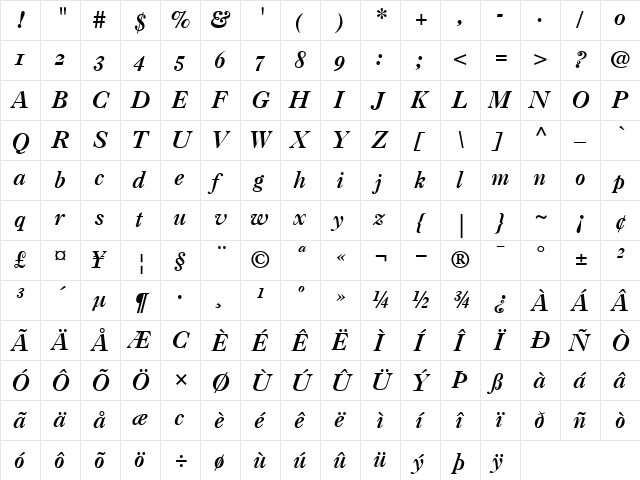
Caslon3OldstyleFigures RomanItalic
Design Context for Caslon3OldstyleFigures Typeface
Caslon3OldstyleFigures brings classic typographic sensibility to the table — its serifs and measured letterforms reflect centuries of print heritage. The slanted form adds forward momentum and visual energy.
Pro Tip: Use Caslon3OldstyleFigures for editorial body copy and considered headline work. Pair with a neutral sans for UI elements or captions to create a classic hierarchy.